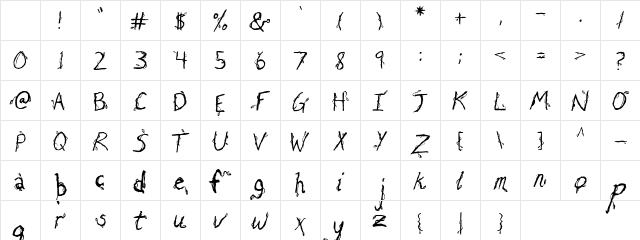
Complete Fh_Euphoria Regular glyph index. Displaying only characters natively supported by Fh_Euphoria Regular font.
Fh_Euphoria is a composed and adaptable typeface that performs quietly and consistently across a wide range of design contexts.